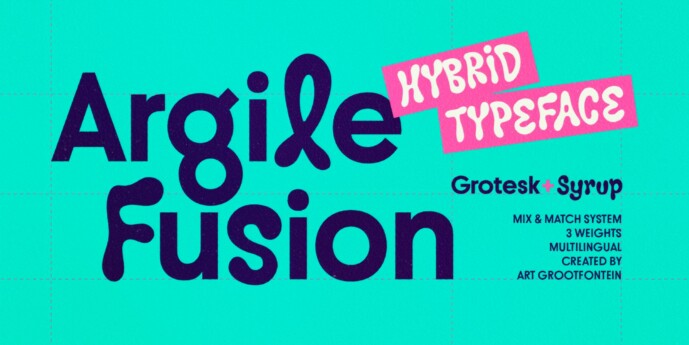
Argile Fusion Font Family
Designer: Art Grootfontein
Argile Fusion is an innovative pairing of two distinct fonts: a sleek, geometric sans and an expressive, hand-drawn lettering. Designed to coexist in perfect synergy, these two fonts can be seamlessly mixed and matched to create stunning, contemporary designs. Argile Fusion Family comes in 3 weights: • Regular • Medium • Bold This family is the perfect choice for editorial design, titles, short texts on book covers and large-format publications, or as part of a corporate identity, logos & packaging.